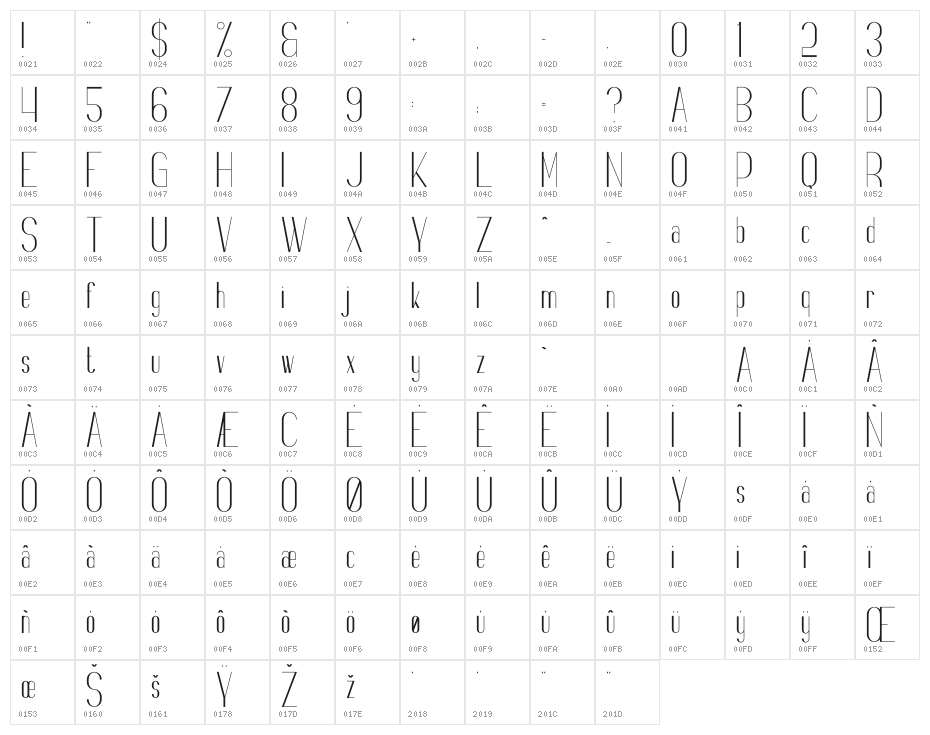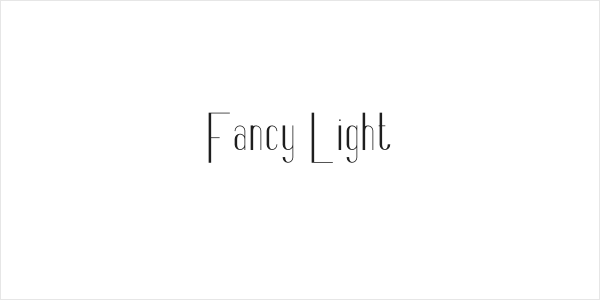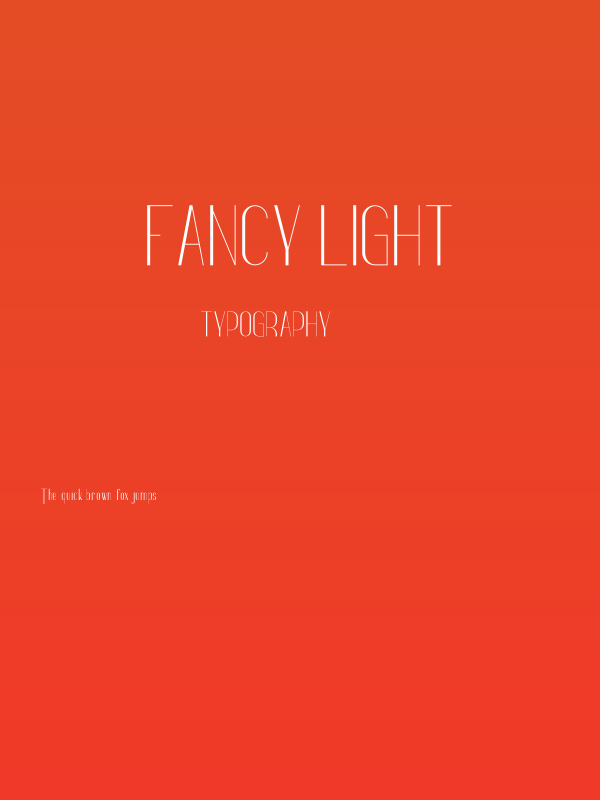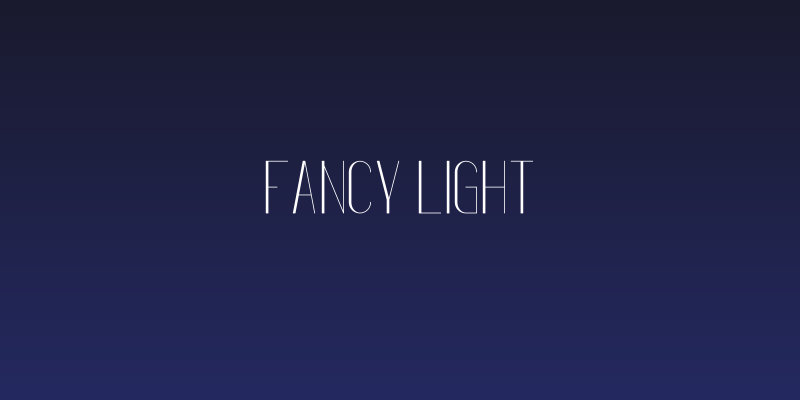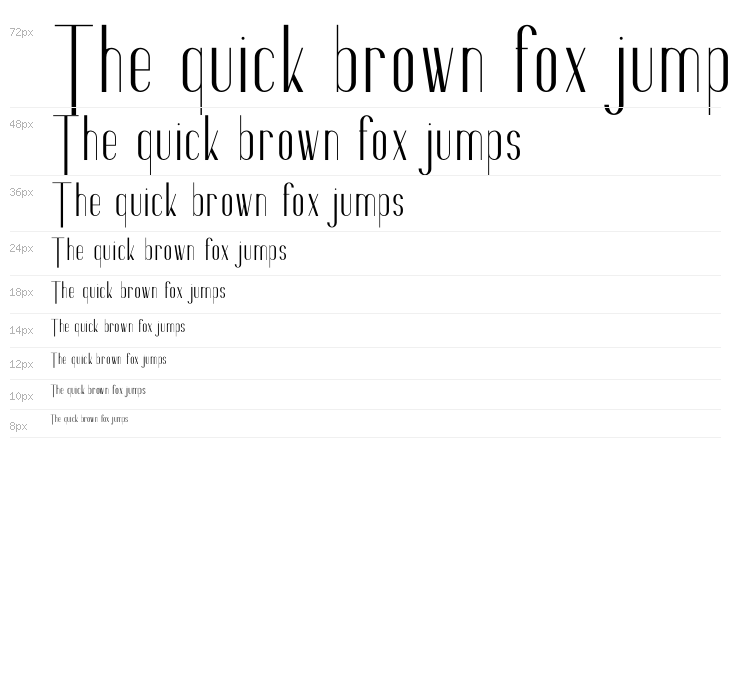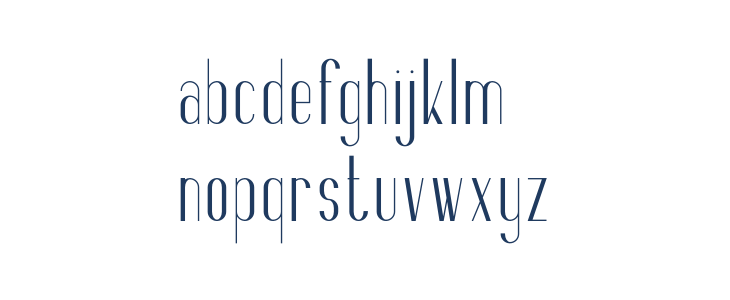
Fancy Light Font
Fancy Light Description
This font features a sleek and modern design with elongated, narrow characters that exude elegance and sophistication. The uppercase letters are tall and slender, while the lowercase letters maintain a consistent height, creating a harmonious balance. The numerals are distinct and easy to read, with a uniform stroke width that adds to the font's refined appearance. Special characters are thoughtfully designed to complement the overall aesthetic, making this font versatile for various applications. Its clean lines and minimalistic style make it suitable for contemporary design projects.
| Proposed Projects | Ideal for fashion magazines, luxury branding, modern websites, and minimalist design projects. |